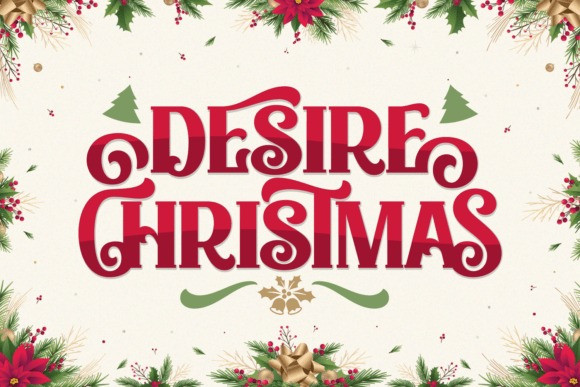
Desire Christmas Font
Designer: Ari (7NTypes)
Desire Christmas Font: combines traditional charm with modern craftsmanship. The flowing lines, bold serifs and subtle curves evoke a sense of celebration, joy and classic holiday spirit. Perfect for designers looking for a classy and cheerful display font that instantly conveys the warmth of the Christmas season.